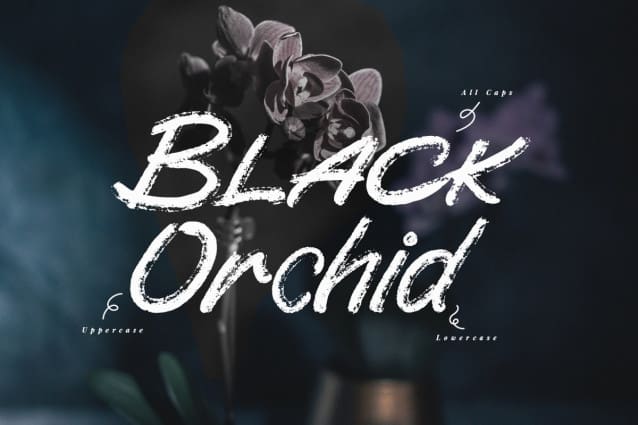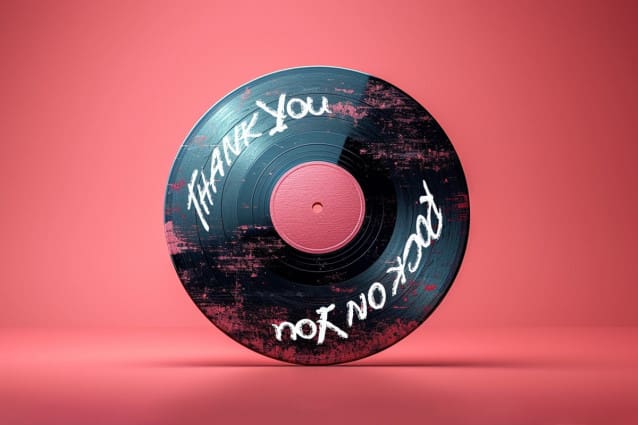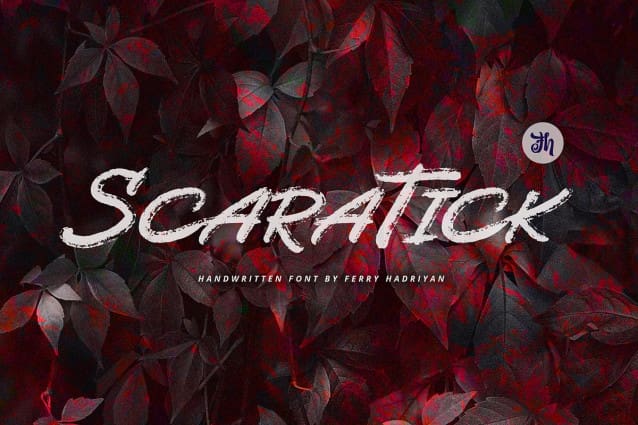
Scaratick Brush Font
Scaratick Brush Font is scipt fonts with handwritten and grung dry brush style, with OpenType feature include of the font. Suitable for design, element design, event, logo, and awesome work, etc…